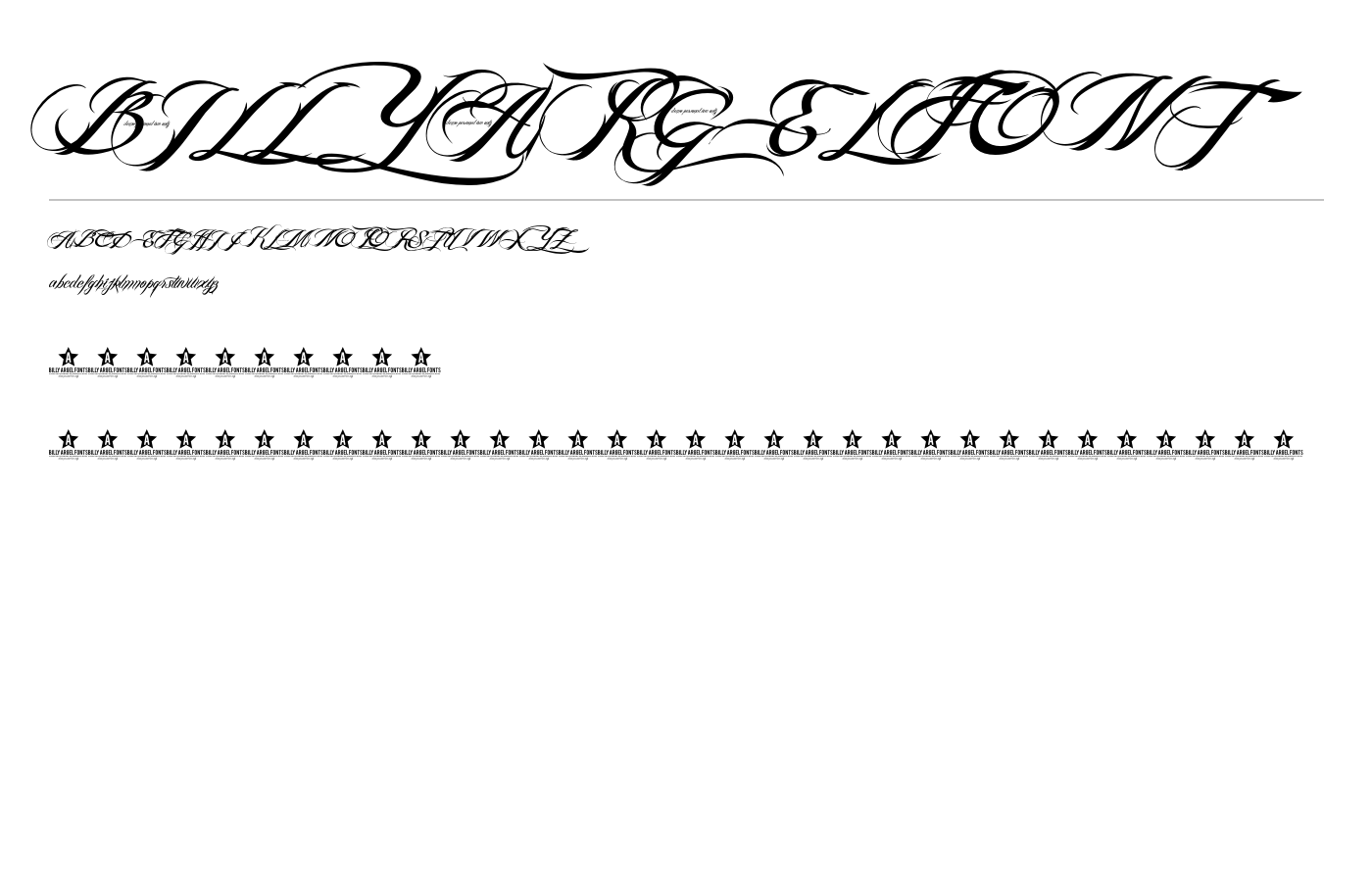
Billy Argel Font is an ornate script typeface characterized by its elegant, flowing strokes and highly decorative swashes that evoke a sense of classic sophistication and artistry. Its delicate, calligraphic style makes it ideal for elegant invitations, luxury branding, and decorative headlines where a refined and artistic touch is desired. This font works best in large sizes to showcase its intricate details, lending a luxurious and timeless feel to any design.
BILLY ARGEL FONT